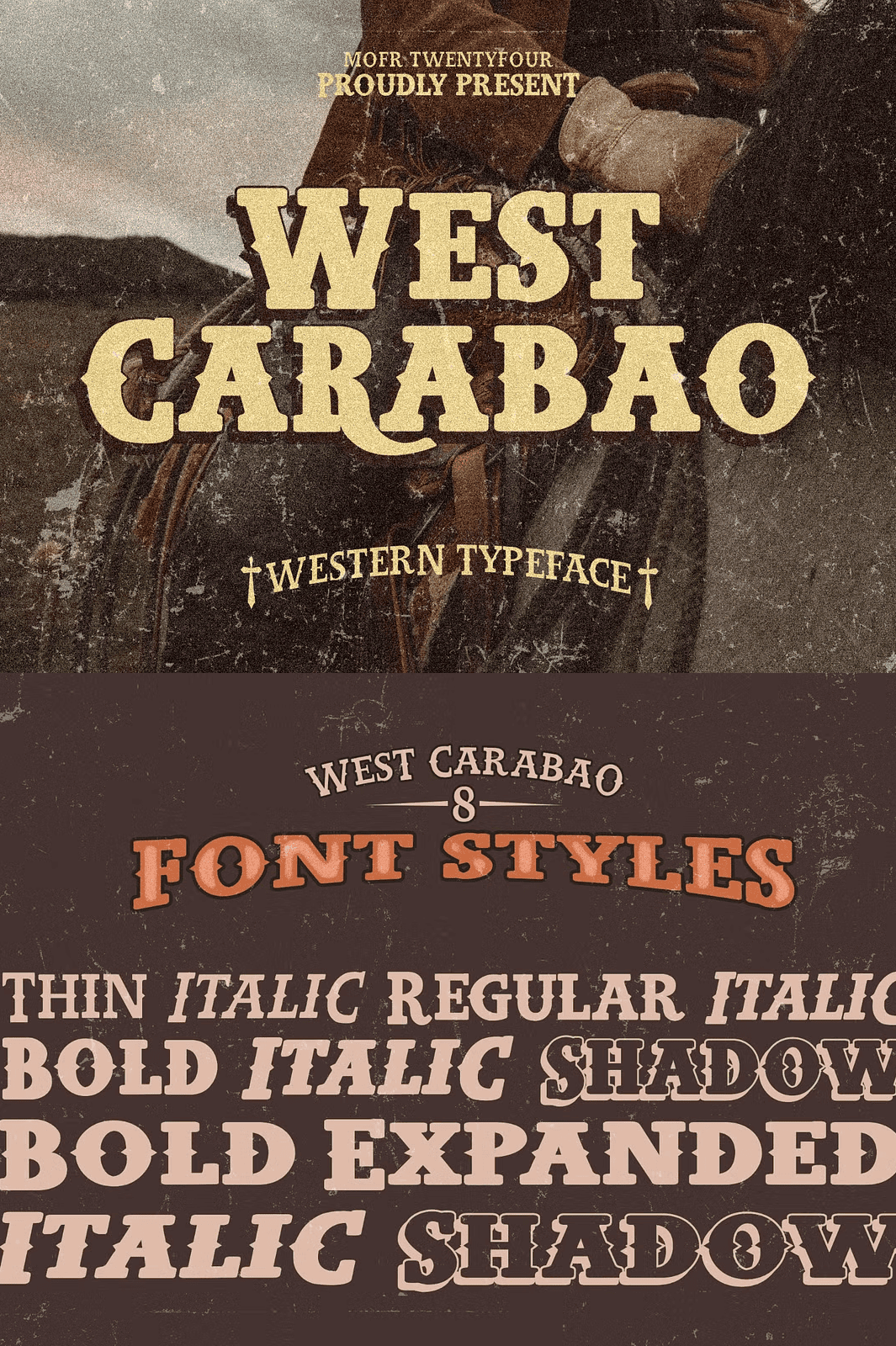
West Carabao | Western Slab Font
Unleash the untamed energy of the American frontier with West Carabao—a bold, character-rich vintage western slab font that masterfully blends rugged old-school grit with modern design sophistication. Engineered for creatives who demand impact, personality, and adaptability, West Carabao delivers unmatched versatility across a wide spectrum of projects. From striking posters and high-converting marketing materials to iconic T-shirt graphics, immersive game interfaces, and bold branding identities, this font gives your visual voice the strength and presence it deserves.
Master a Full Spectrum of Styles for Maximum Creative Freedom
West Carabao isn’t just one font—it’s a complete typographic toolkit. The family offers a rich array of styles to match any mood or need, ensuring you never run out of design options. Whether you’re crafting a delicate, elegant title or a rugged, attention-commanding headline, West Carabao has the perfect form.
Bold Styles – Command attention with powerful, thick letterforms that radiate confidence and authority. Ideal for logos, product packaging, and posters where dominant presence is key.
Thin Styles – Achieve sleek minimalism and refined elegance. Use thin variants for subtle accents, sophisticated typography, or projects where a lighter, more modern touch is required.
Italics – Add movement and flair with fluid, slanted characters. Italic versions are perfect for pull quotes, subtitles, or any design that needs a dynamic, handwritten feel.
Shadow Effects – Inject depth and drama with pre-designed shadowed variants. These styles instantly give your text a three-dimensional, dramatic look, perfect for game UIs, stage designs, or any project that needs to stand out from the background.
West Carabao is built for serious creators. It comes packed with advanced typographic features to elevate your work from good to exceptional.
• Multilingual Support – Works seamlessly with a wide range of languages, including Latin, extended Latin, Cyrillic, and more. This global compatibility makes it a top choice for international brands, game developers, and global marketing campaigns.
Elevate Your Brand with Timeless Western Charm
West Carabao is more than just a font; it’s a powerful storytelling tool. Its vintage aesthetic instantly evokes the spirit of old saloons, dusty trail maps, and classic American advertising. It’s the perfect choice for creating authentic branding for ranches, breweries, music festivals, outdoor gear, or any business with a rugged, nostalgic identity.